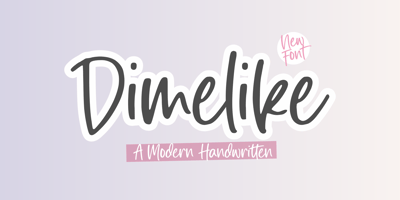
Dimelike Font Family was designed by Restu Angga and published by Balpirick. Dimelike contains 1 styles and family package options. Dimelike is a Modern Handwritten Font.Dimelike feels equally charming and elegant. It looks stunning on wedding invitations, thank you cards, quotes, greeting cards, logos, business cards and every other design which needs a customized touch.- also multilingual supportEnjoy the font, feel free to comment or feedback, send me PM or email.Thank you!